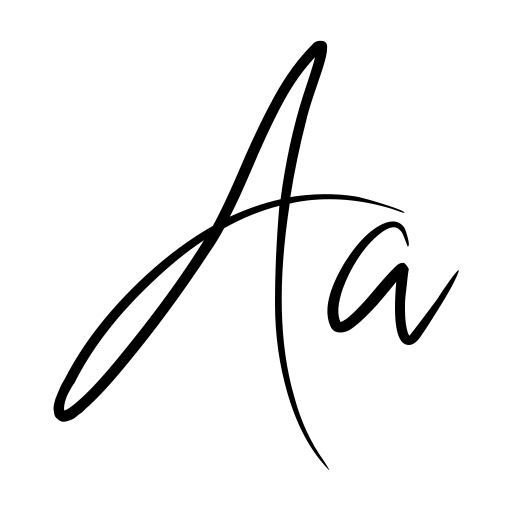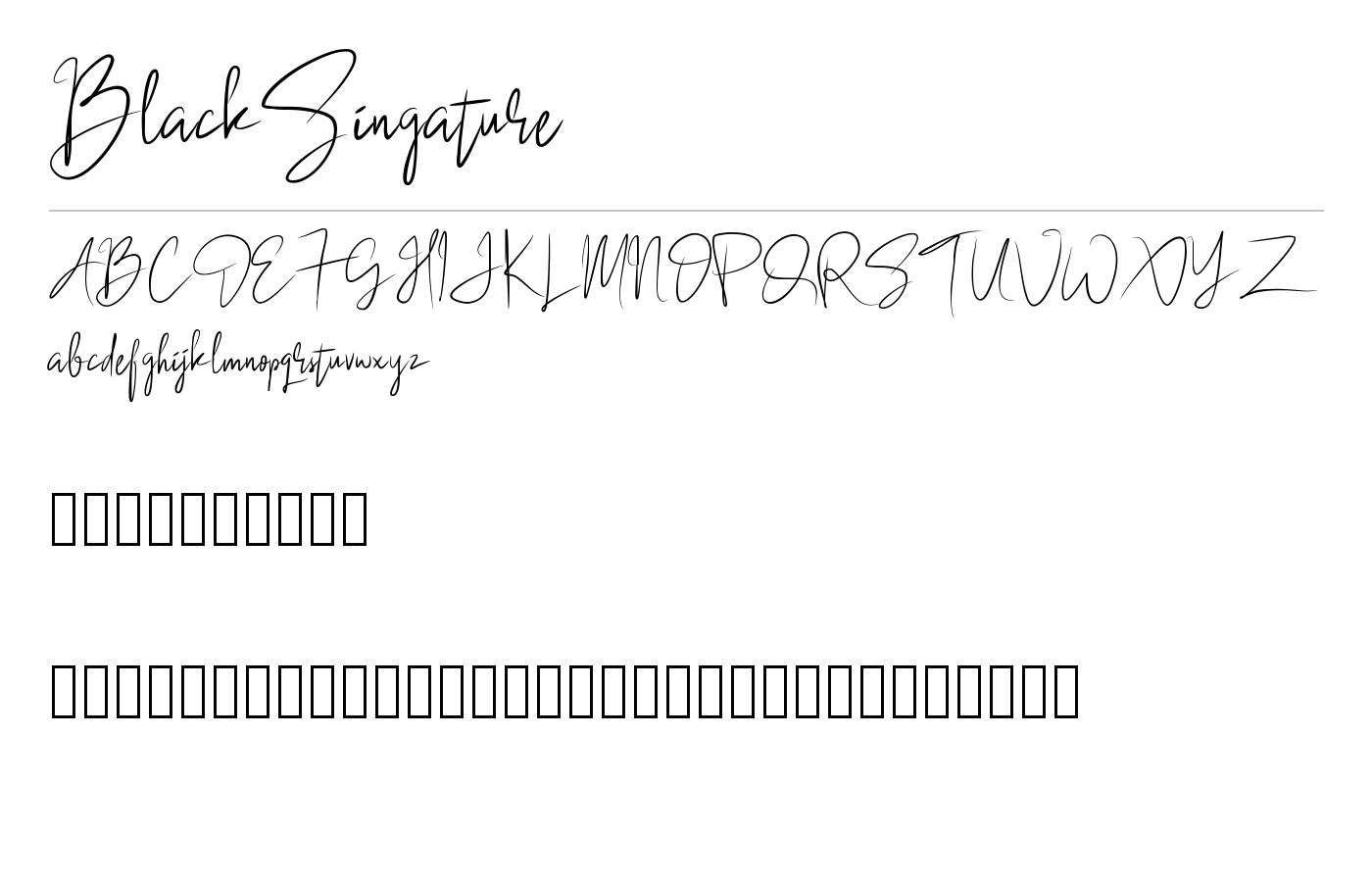
BlackSignature is a delicate, elegant script font that mimics natural handwriting with fine, flowing lines and a tall, narrow structure. It exudes a sophisticated, personal feel perfect for luxury branding, invitations, and creative projects that need a graceful, stylish touch. Its airy, lightweight strokes and unique letterforms create a modern yet intimate vibe suitable for expressive, upscale designs.
BlackSingature Font
About BlackSingature Font